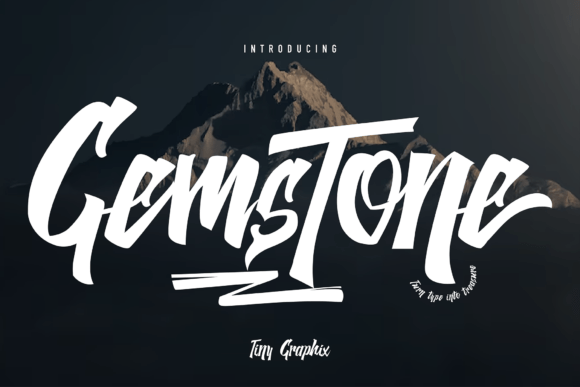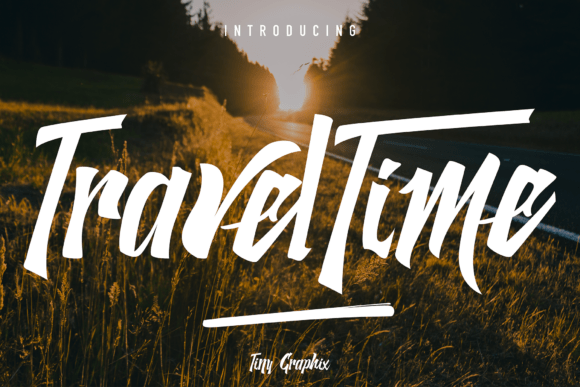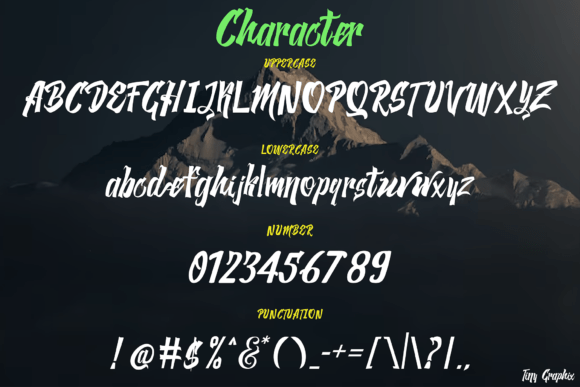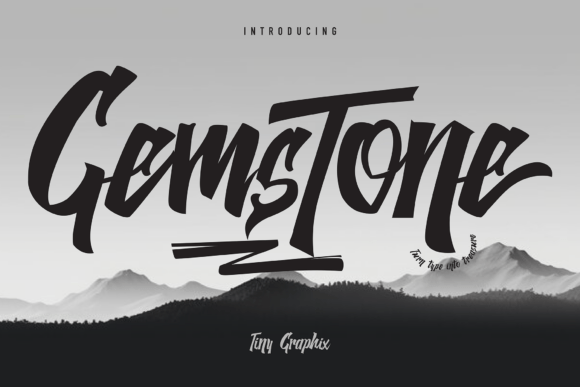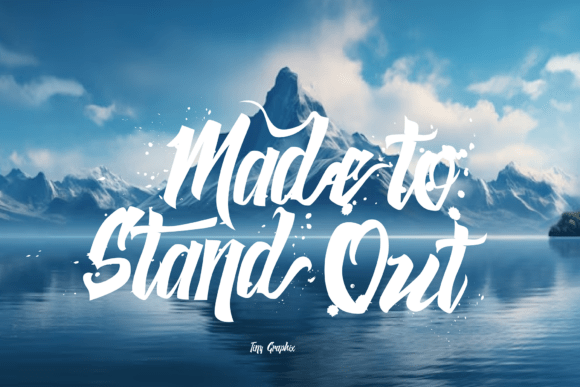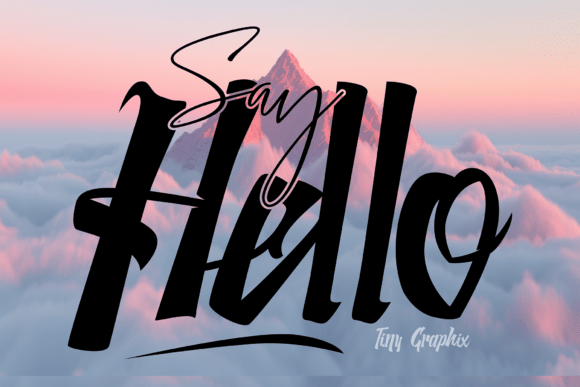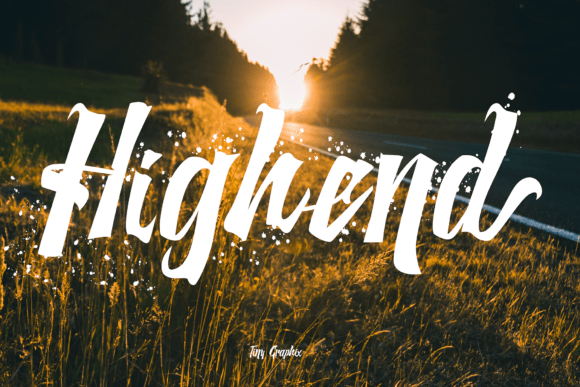
The Perfect Gemstone Font for Making a Statement
Have you ever stared at a blank design screen, feeling like your ideas just aren’t translating onto the page? We’ve all been there – the blank canvas staring back at us, taunting us with its emptiness. But then, something magical happens. You stumble upon the perfect font, and suddenly your design comes to life. For me, that moment happened when I discovered the Gemstone Font – a bold, modern script font that shines with elegance and confidence.
With its thick brush strokes and stylish curves, the Gemstone Font is the perfect addition to any design project. Whether you’re working on logos, branding, wedding invitations, or social media graphics, this font adds a luxurious, high-end look that’s sure to impress. And with its easy-to-read design, you can trust that your message will shine through with clarity and style.
Gemstone Font Key Features
- Unique Characteristics: Gemstone Font features a unique blend of modern and vintage elements, with intricate details and subtle texture, giving it a distinctive and eye-catching appearance.
- Font Weight and Style: The font family includes multiple weights, from light to bold, as well as italic and oblique styles, providing a range of options for designers to choose from.
Designer Review: Gemstone Font
Overall, I think Gemstone Font is a great addition to any designer’s toolkit. Here’s what I like about it: ✨ It’s highly versatile, with a wide range of applications from body text to headings. ✨ The font’s unique blend of modern and vintage styles makes it a great choice for creative projects. ✨ The font’s high legibility ensures that your text will be easily readable even at small sizes.
However, there are a few limitations to consider: ⚠️ The font’s file size is a bit larger than average, which may cause issues with slower computers or older software. ⚠️ Some users may find the font’s styles a bit too ornate, which can make it difficult to read in certain contexts. ⚠️ Limited language support may be a concern for designers working with non-English texts.
Overall, I think Gemstone Font is a solid choice for designers who want a unique, high-quality font for their projects. While it may have some limitations, its versatility and legibility make it a great addition to any font collection.
Here are some key features to consider:
- Highly versatile and suitable for a wide range of applications
- Unique blend of modern and vintage styles
- High legibility and readability
- Larger file size may cause issues with slower computers
- Some users may find the font’s styles too ornate
- Limited language support
Tips for Getting the Most Out of Gemstone Font
Use Gemstone Font for titles, headings, and emphasis to add visual interest to your designs.
Combine Gemstone Font with other fonts to create a unique and eye-catching typography.
Experiment with different font sizes, colors, and styles to create a consistent visual brand.
Gemstone Font is ideal for:
Brand logos and identity design.
Editorials and fashion magazines.